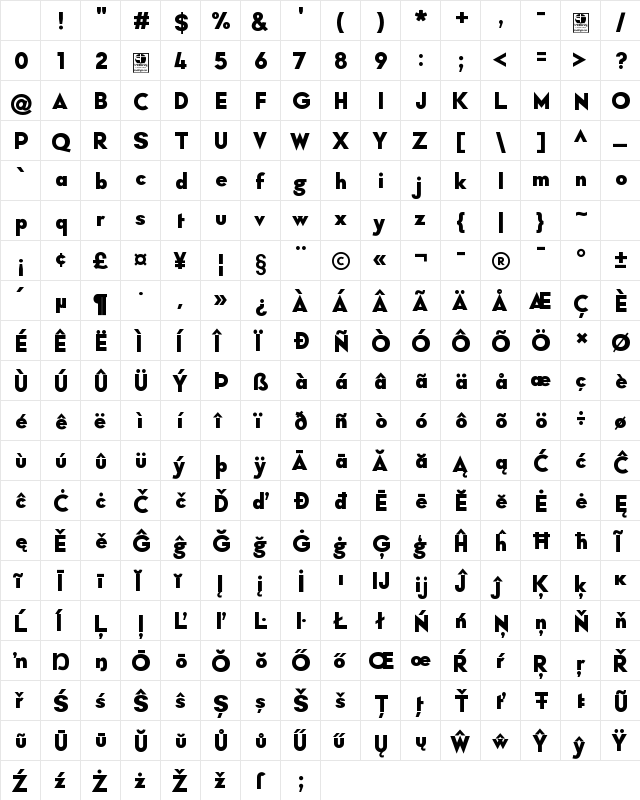
Complete Typo Formal Demo Bold glyph index. Displaying only characters natively supported by Typo Formal Demo Bold font.
Typo Formal Demo is a composed and adaptable typeface that performs quietly and consistently across a wide range of design contexts. Its bold stroke weight gives it real presence on the page.